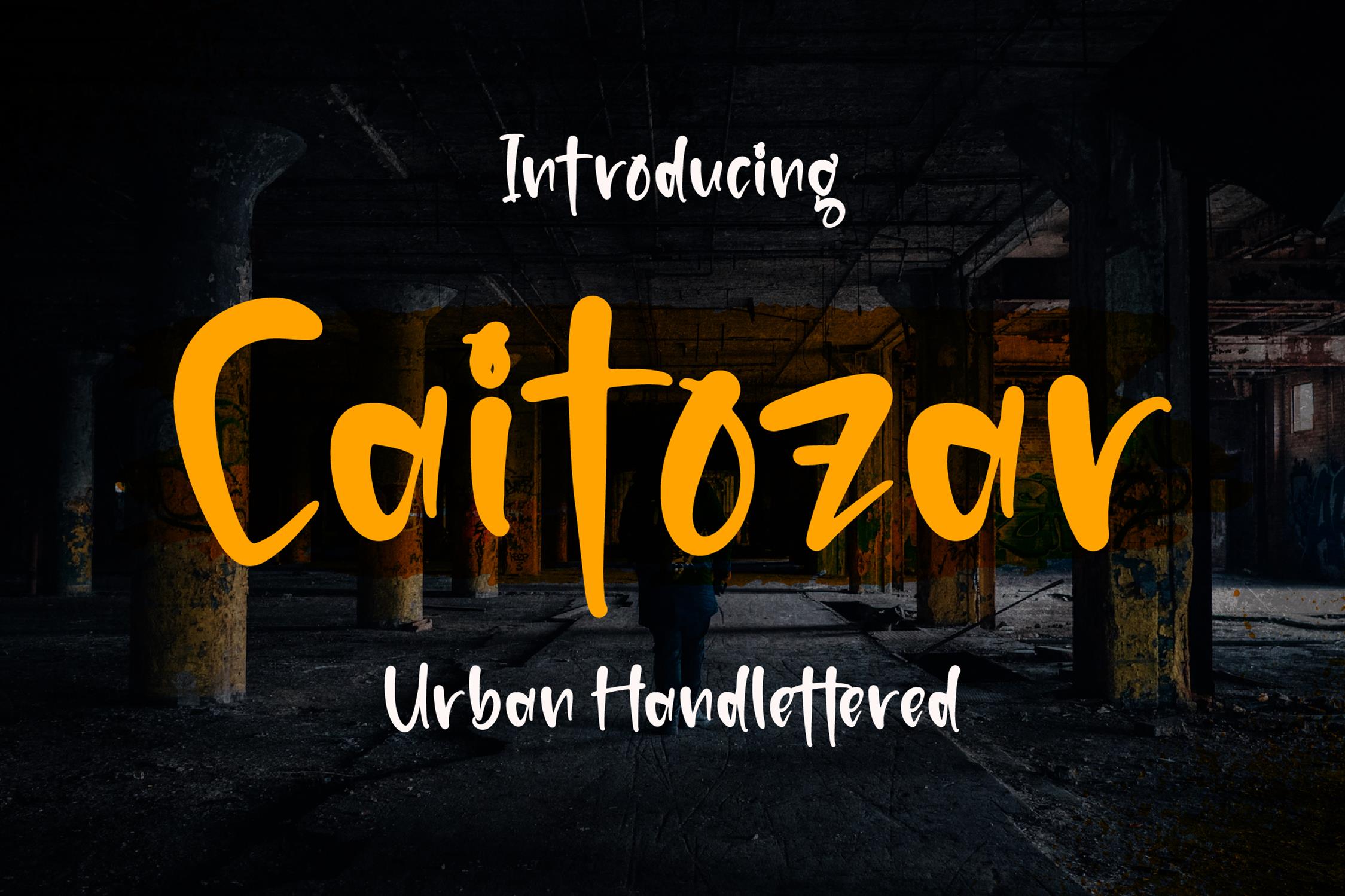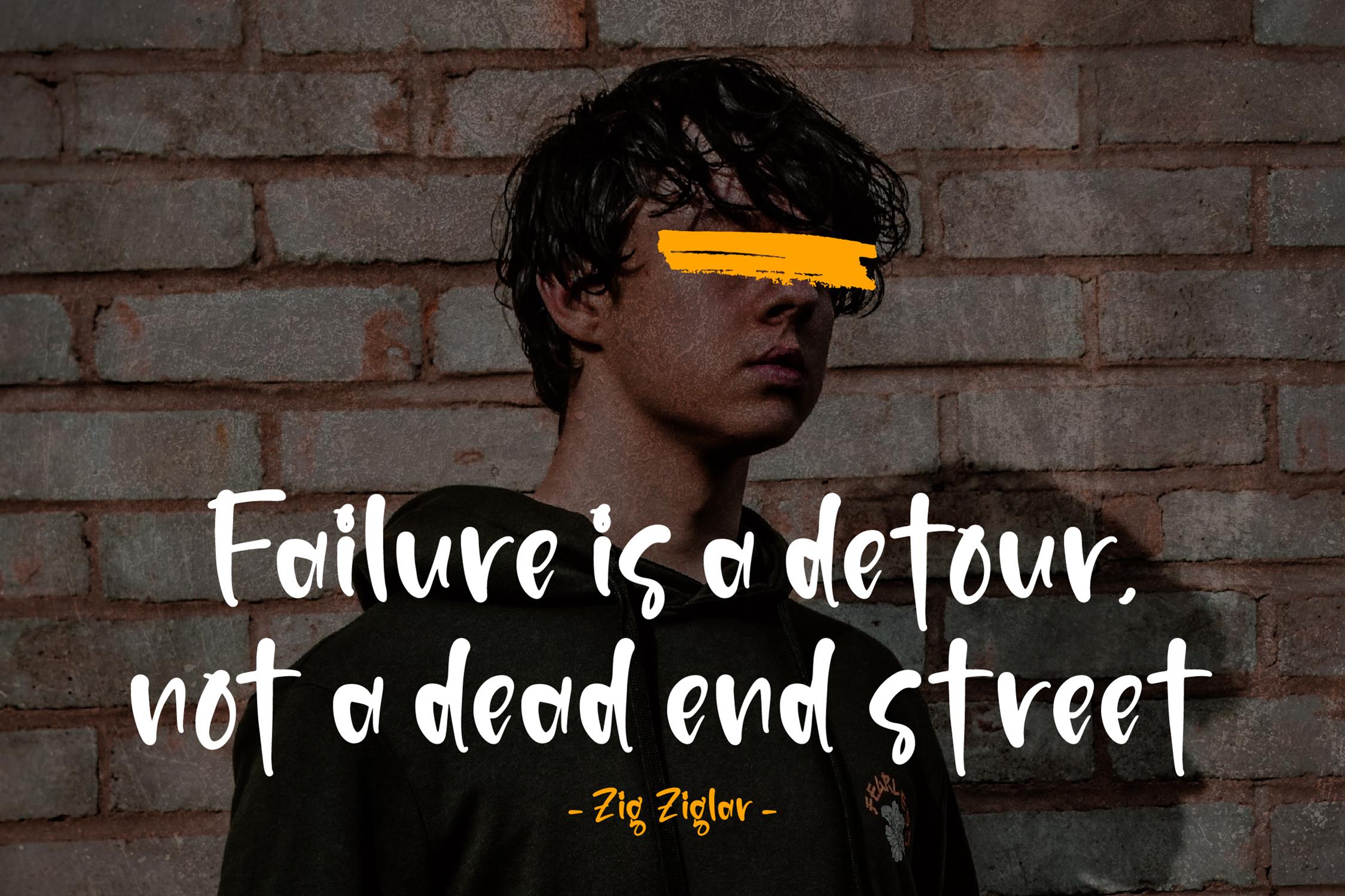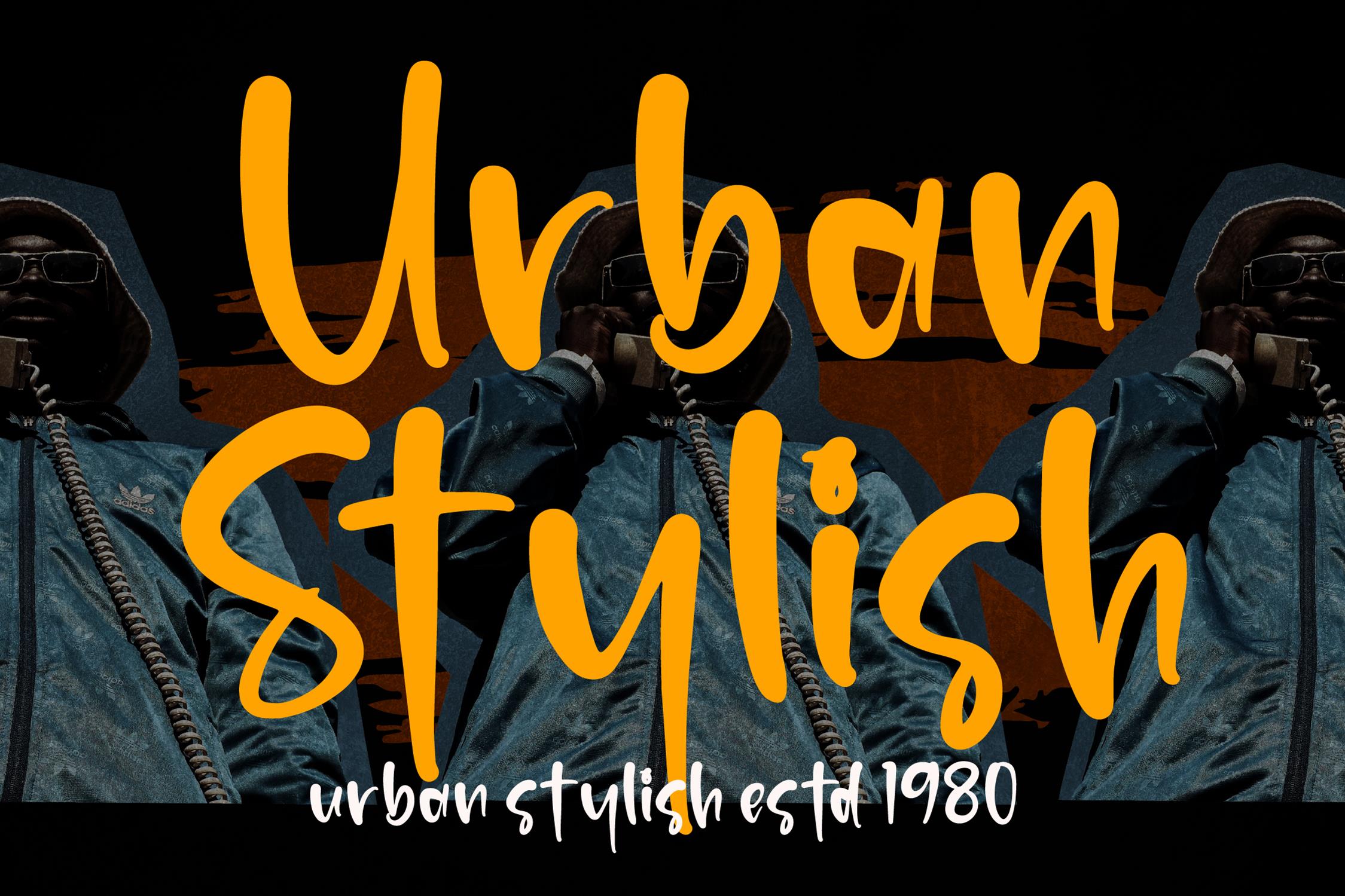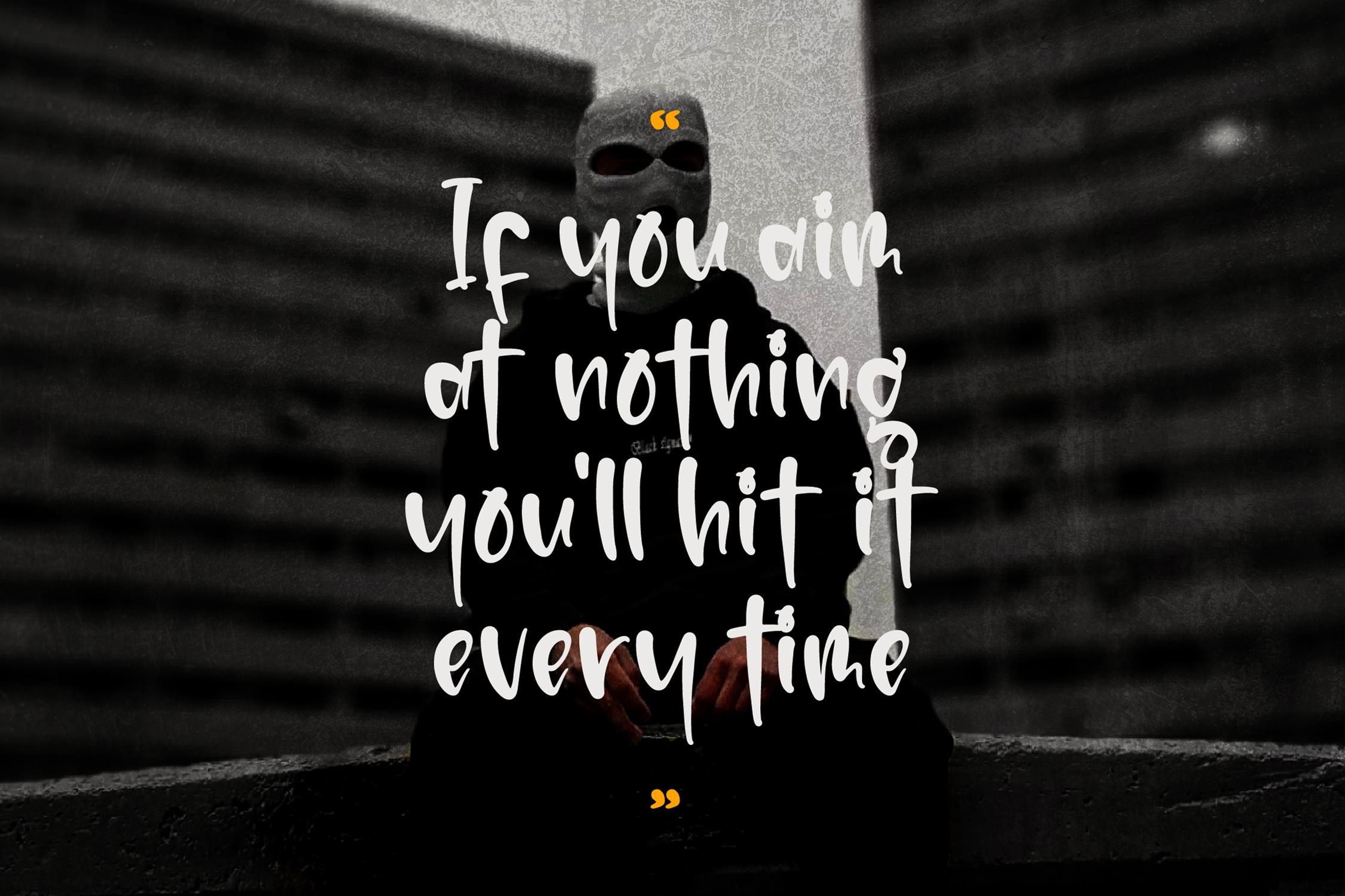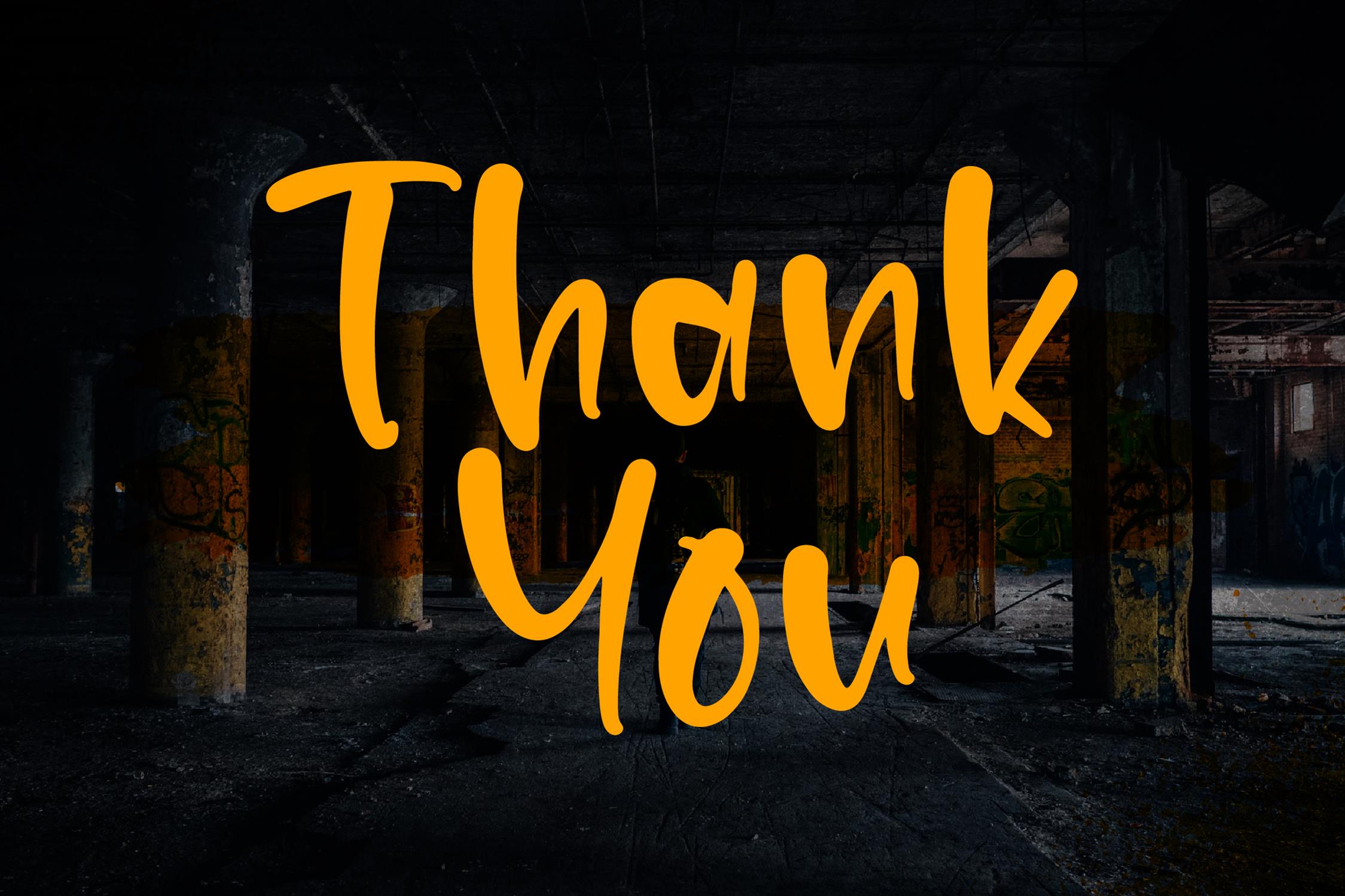
Caitozar Font
Caitozar Brush Font is a urban handlettered font, suitable for any projects such as: logos, branding projects, homeware designs, product packaging, mugs, quotes, posters, shopping bags, t-shirts, book covers, name card, invitation cards, greeting cards, label, photography, watermark, special events, and all your other lovely projects that need a beautiful script taste.